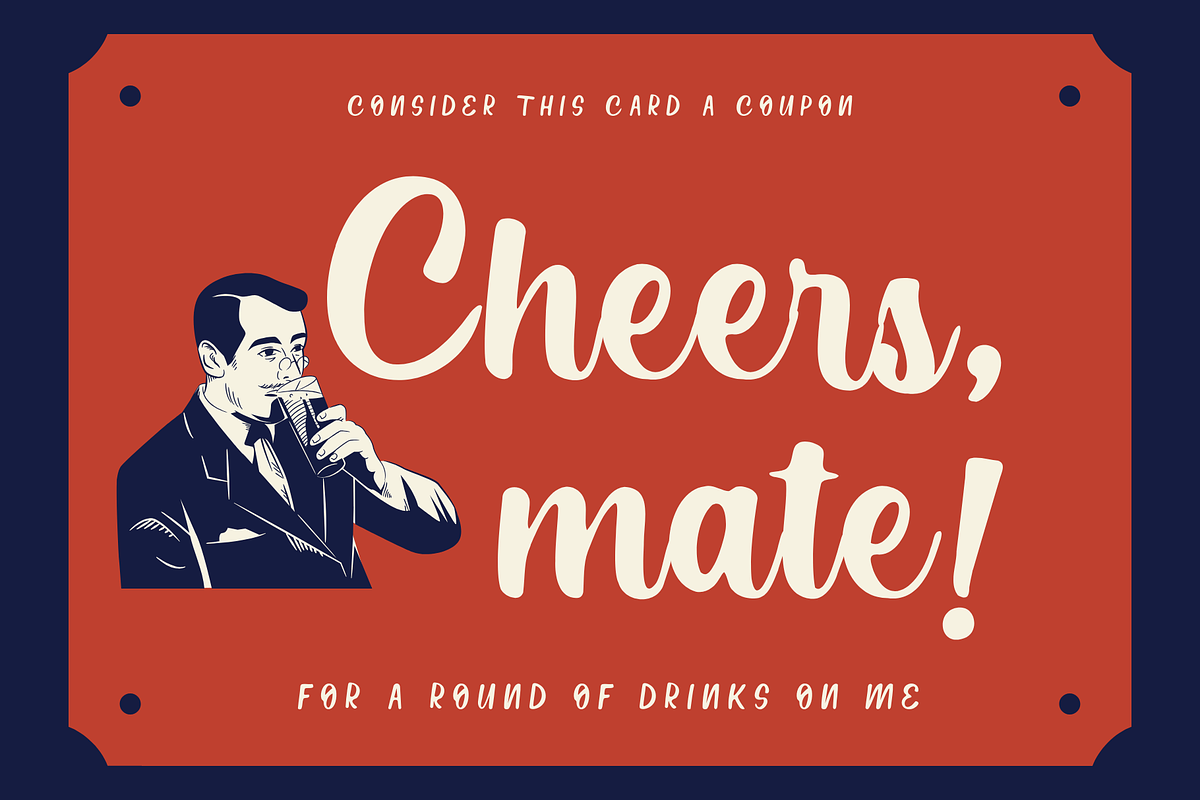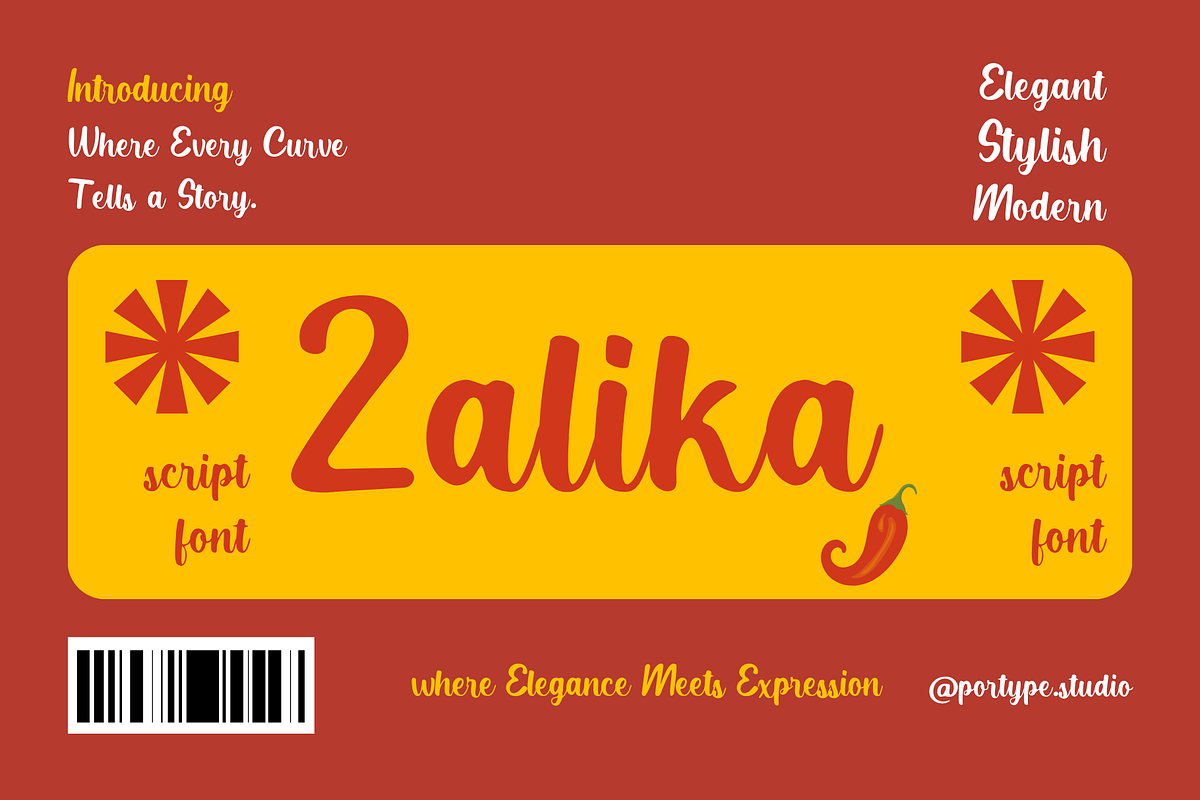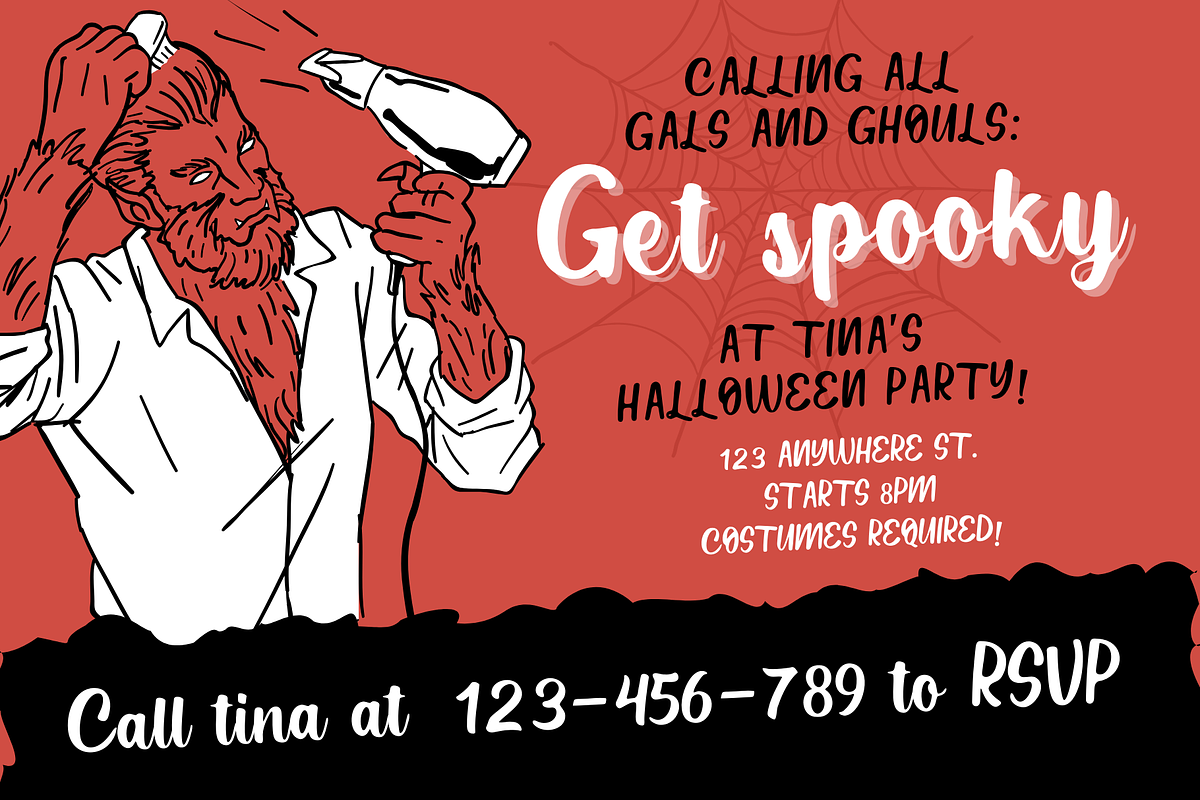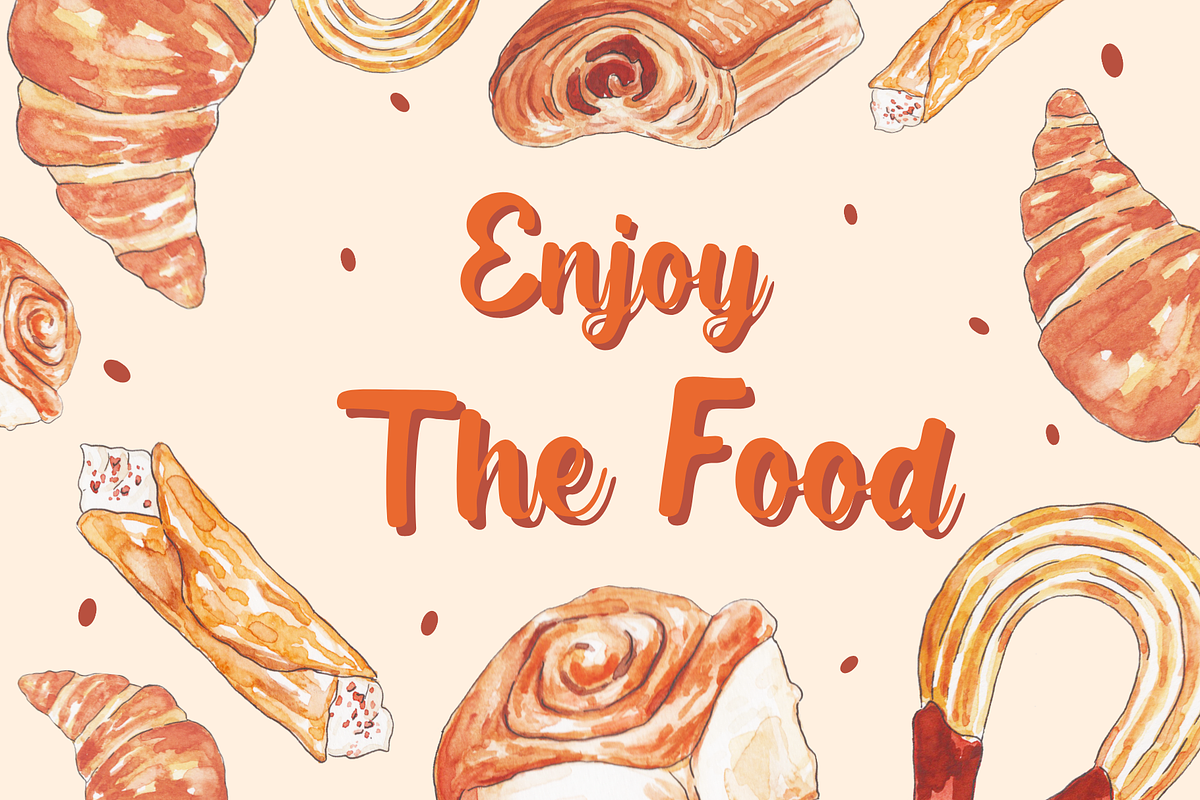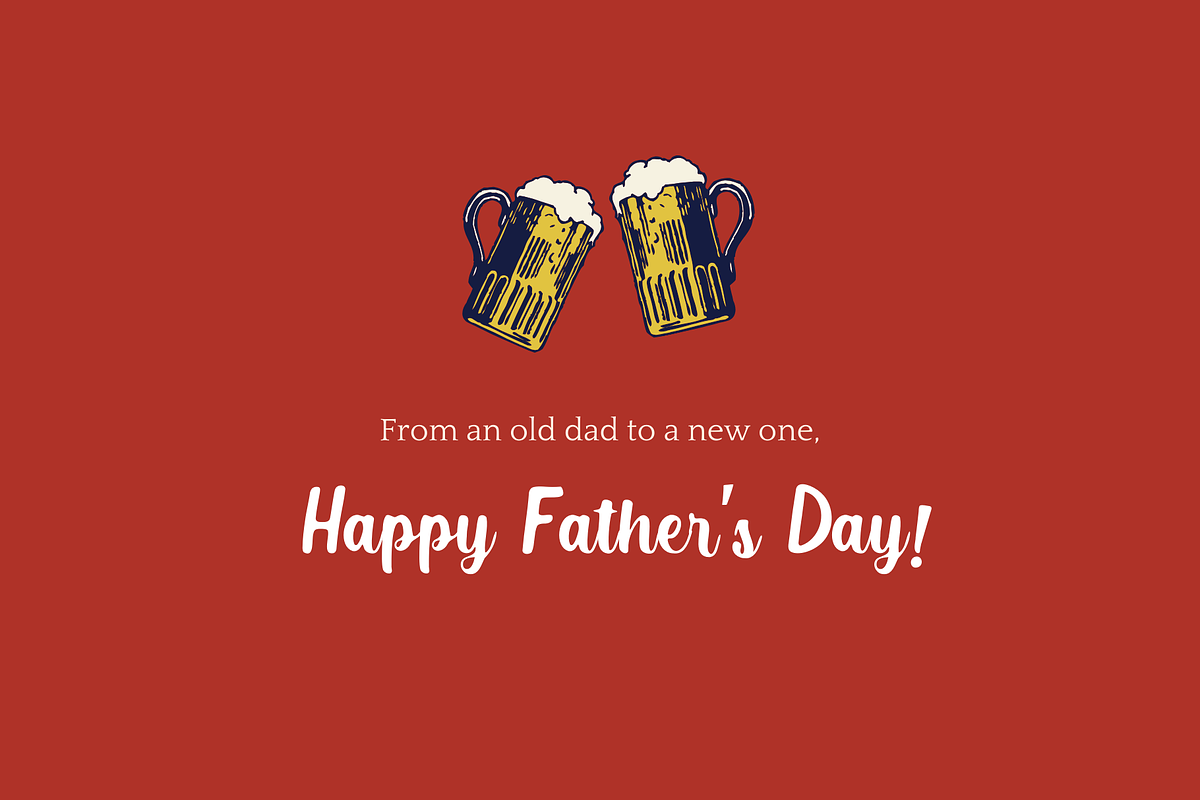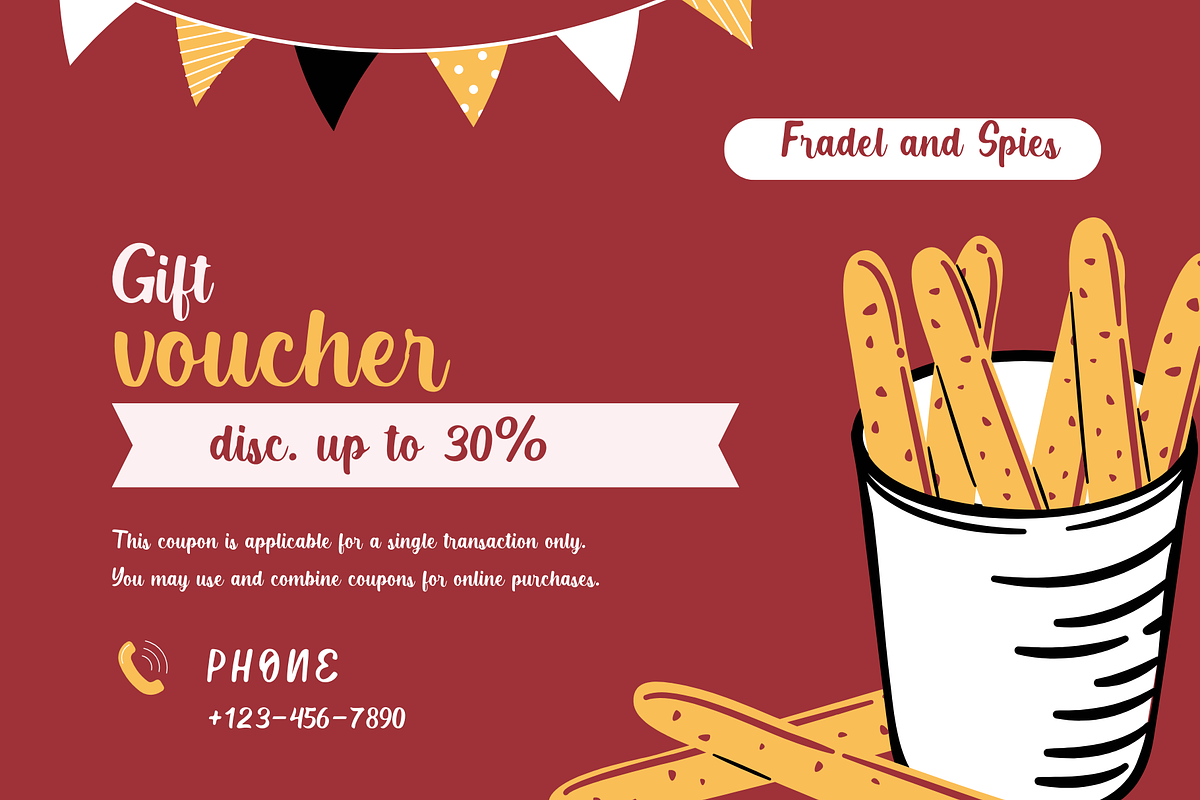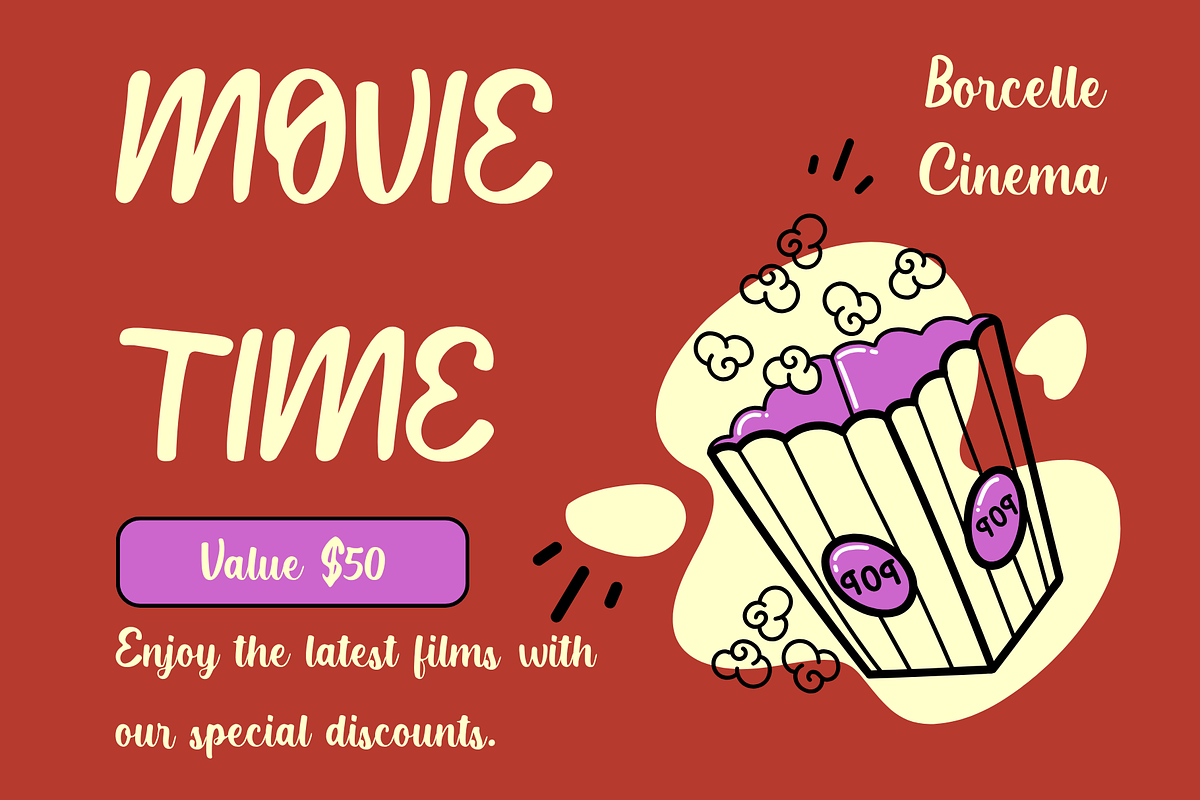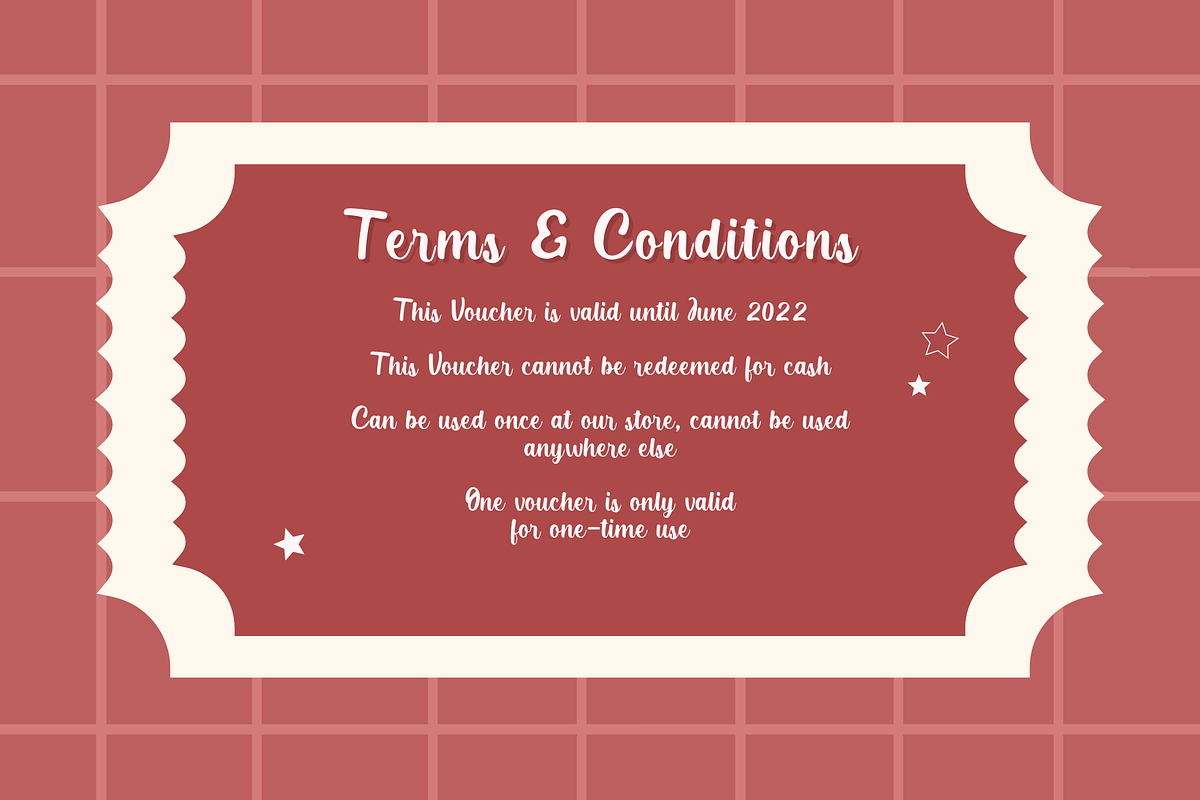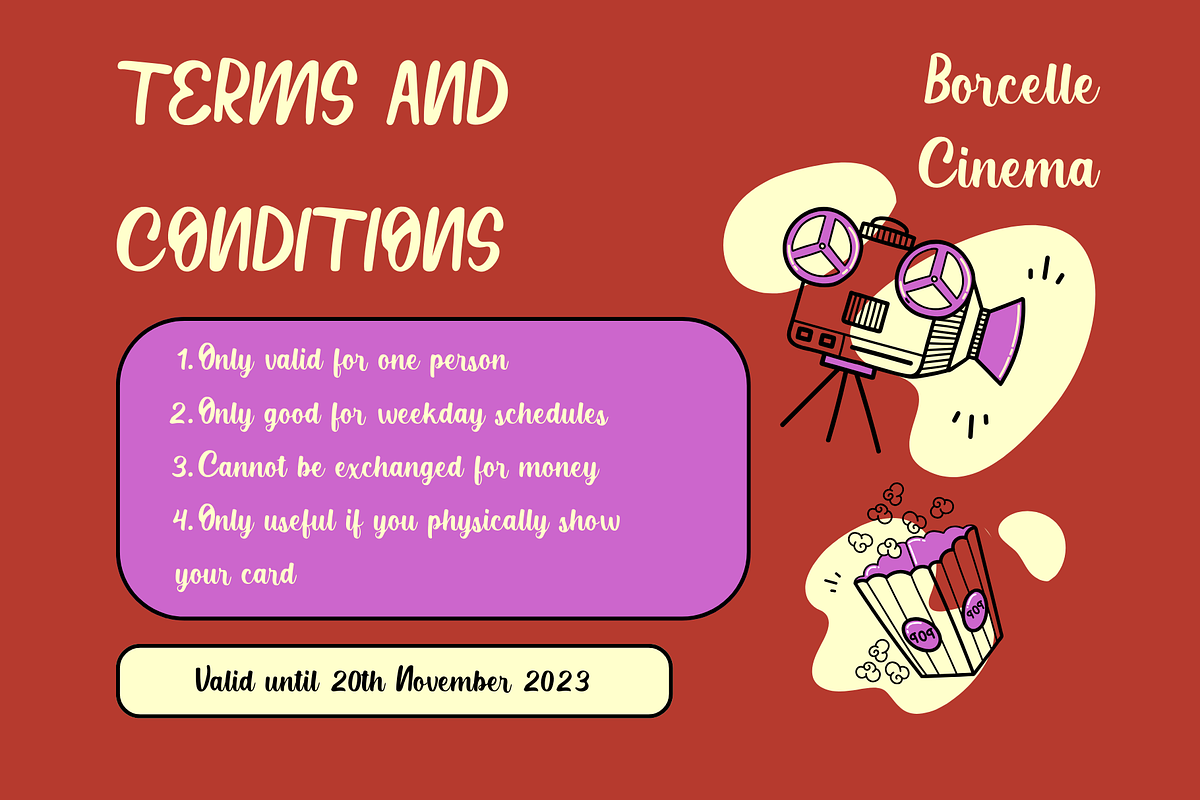
Zalika font
Zalika Font is a captivating script font that exudes elegance and charm in every stroke. Crafted with precision and finesse, this font offers a seamless blend of traditional and modern calligraphic elements. Its fluid lines and graceful curves evoke a sense of sophistication, making it perfect for a variety of design projects.
With its intricate details and smooth transitions, Zalika Font adds a touch of luxury to any text it graces. Whether used for invitations, branding materials, or signage, it effortlessly elevates the aesthetic appeal of any design. The versatile nature of this font allows it to adapt to both formal and informal contexts, lending a sense of style and refinement to any project.